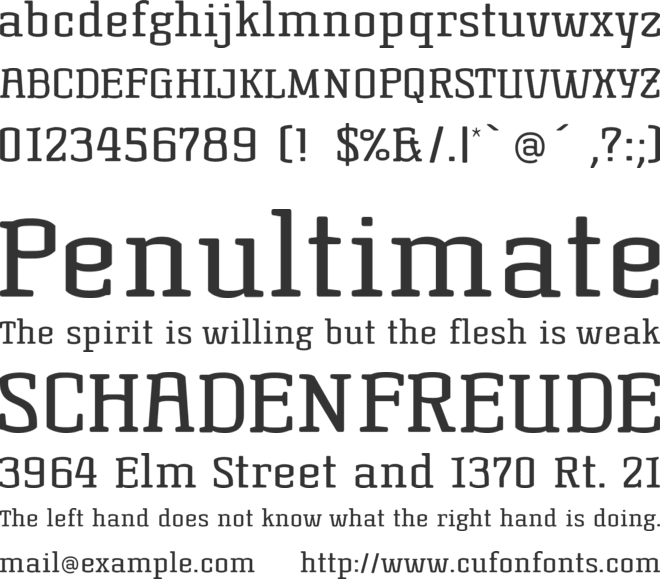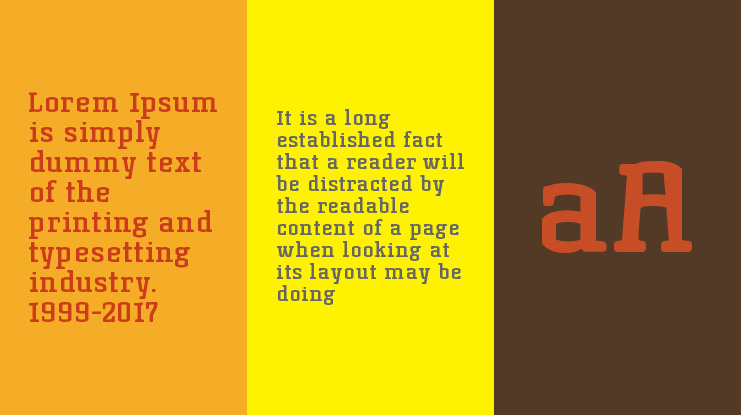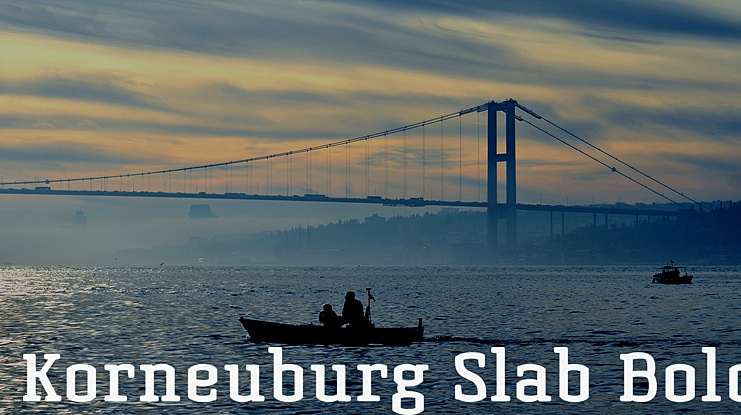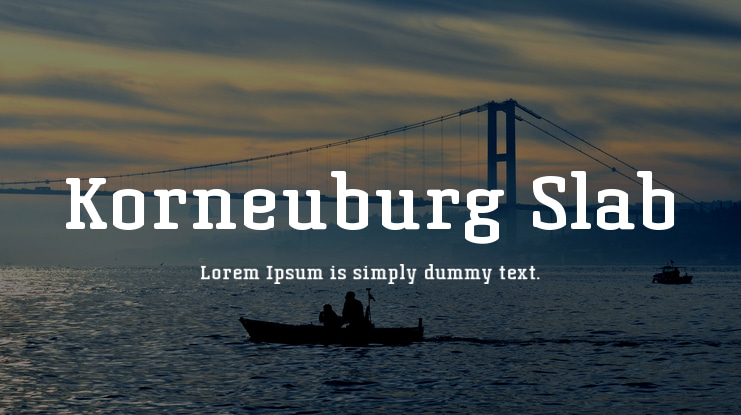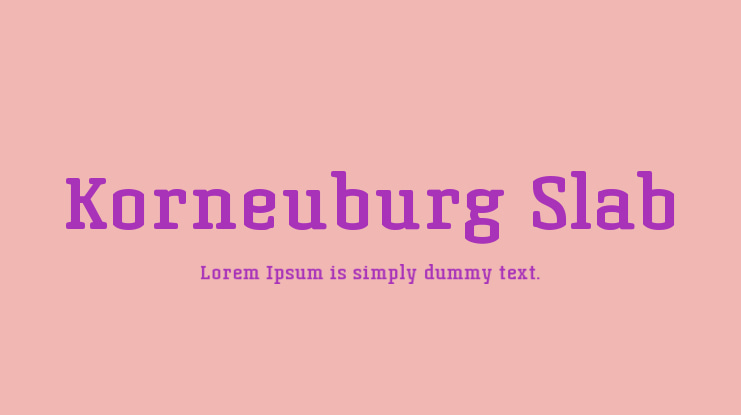
Korneuburg Slab Font Family
Flö Rastbichler
Korneuburg Slab is a text font family with character and great legibility.
Korneuburg Slab was created as a semester project at New Design University, St. Pölten, Austria. It's based on Korneuburg Display, a display/headline font i created in 2011, which was influenced by the neoclassicist city Korneuburg in Lower Austria and especially the forms of it's multiple archways. Korneuburg Slab retains those typical forms but focuses on great legibility, even in small sizes.